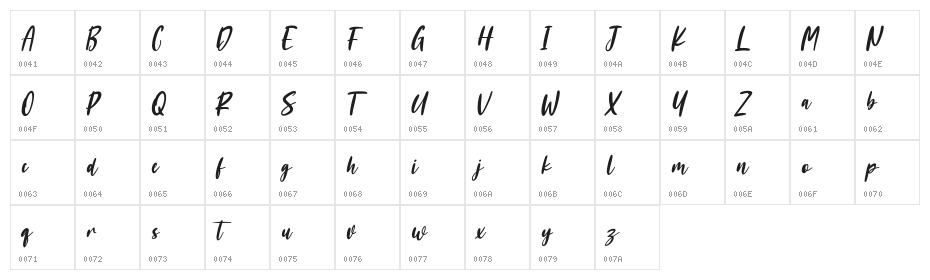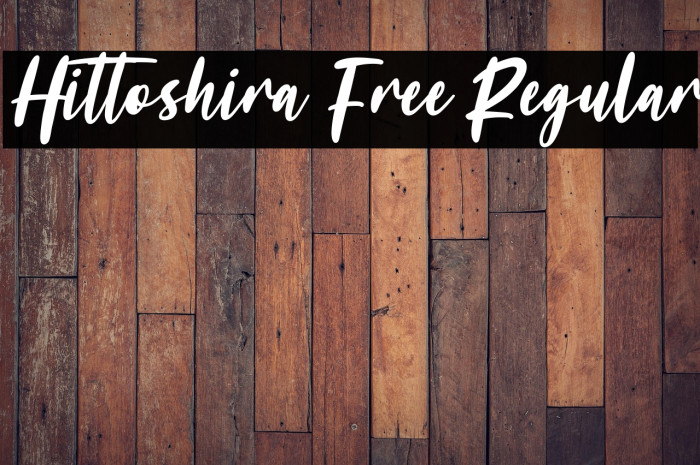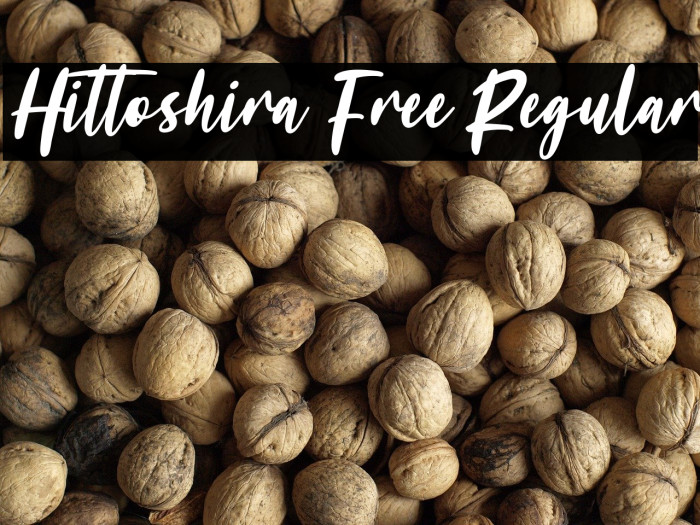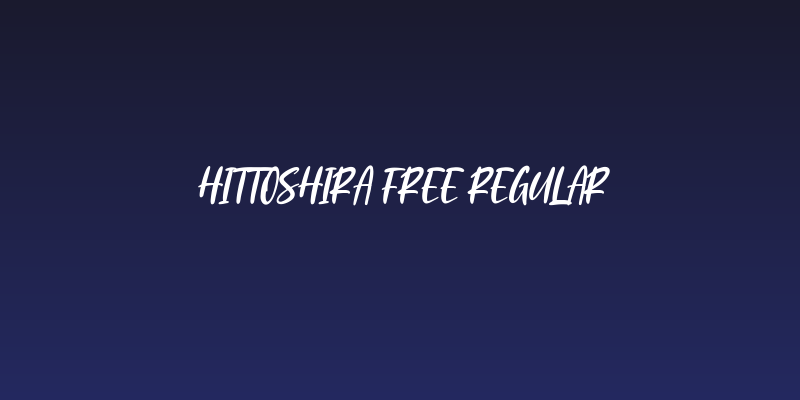
Hittoshira Free Regular Font
Hittoshira Free Regular Description
This font features a bold and expressive handwritten style, characterized by its fluid strokes and dynamic movement. The letters have a natural, organic feel, with varying thickness that adds a sense of rhythm and energy. The uppercase and lowercase letters are well-balanced, maintaining a consistent flow throughout. The font's playful yet elegant appearance makes it suitable for a variety of creative projects. Its unique style is eye-catching and adds a personal touch to any design.
| Proposed Projects | Ideal for branding, invitations, greeting cards, and social media graphics. |